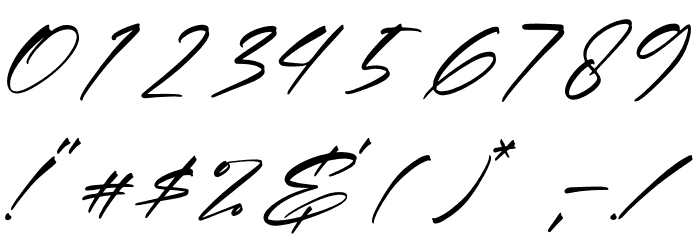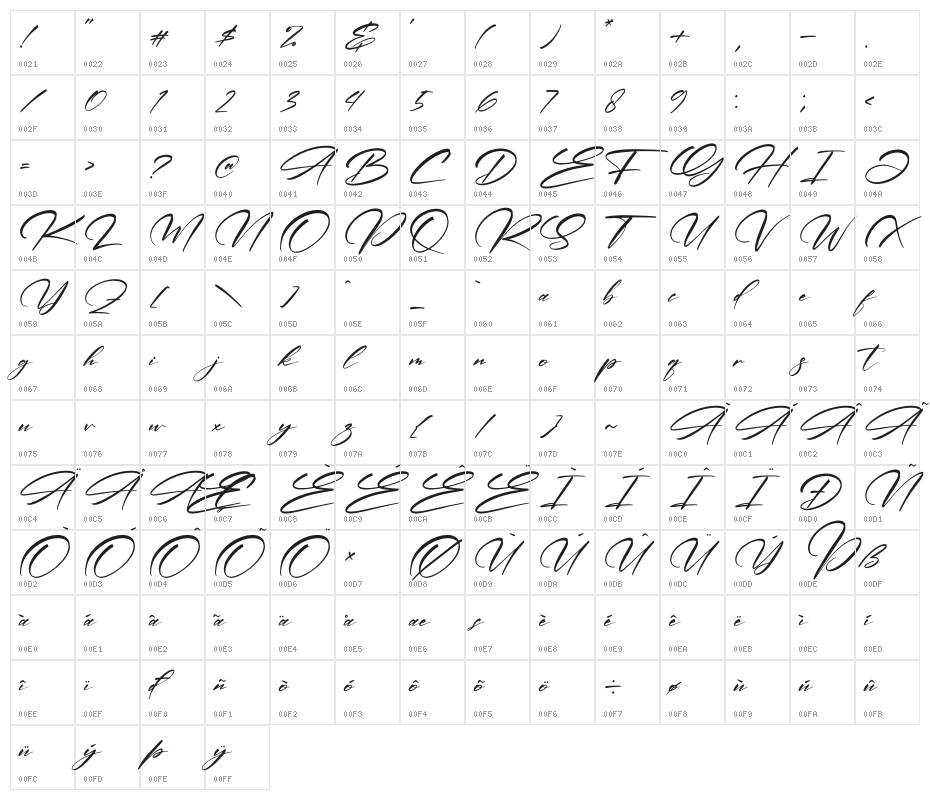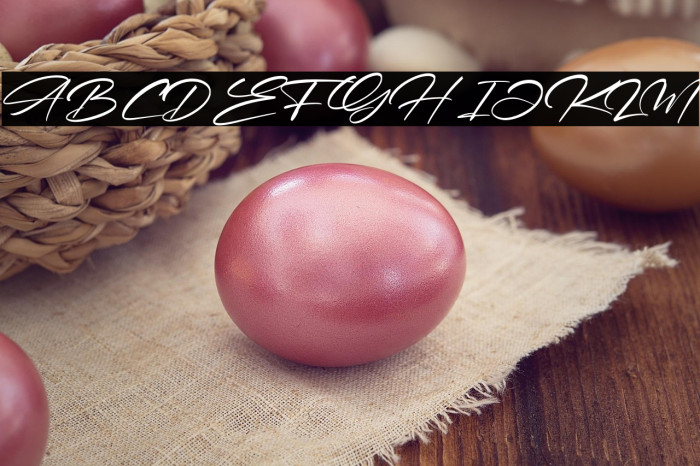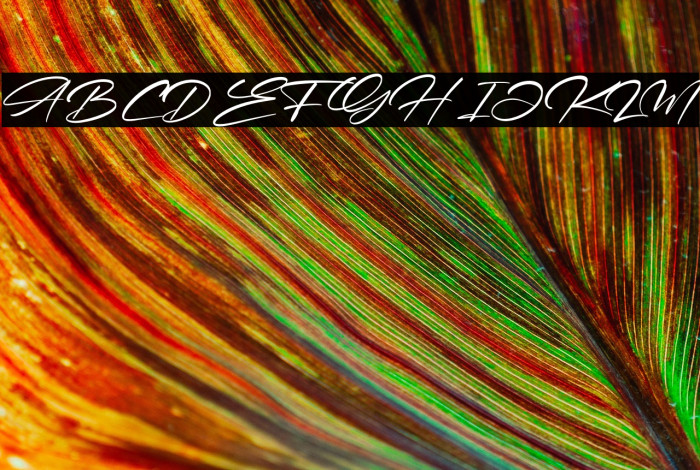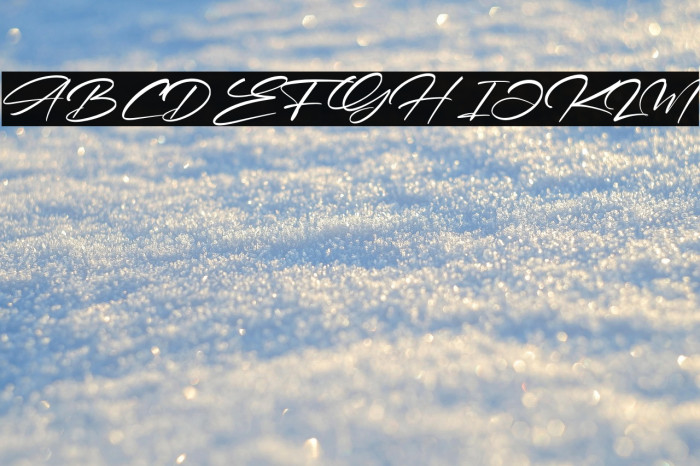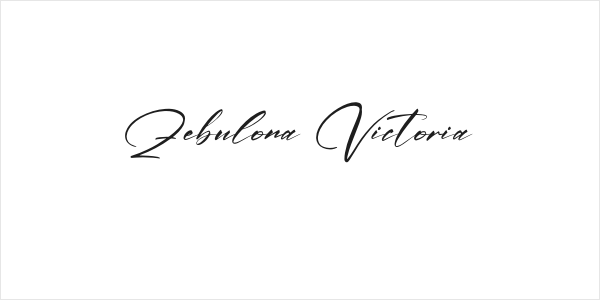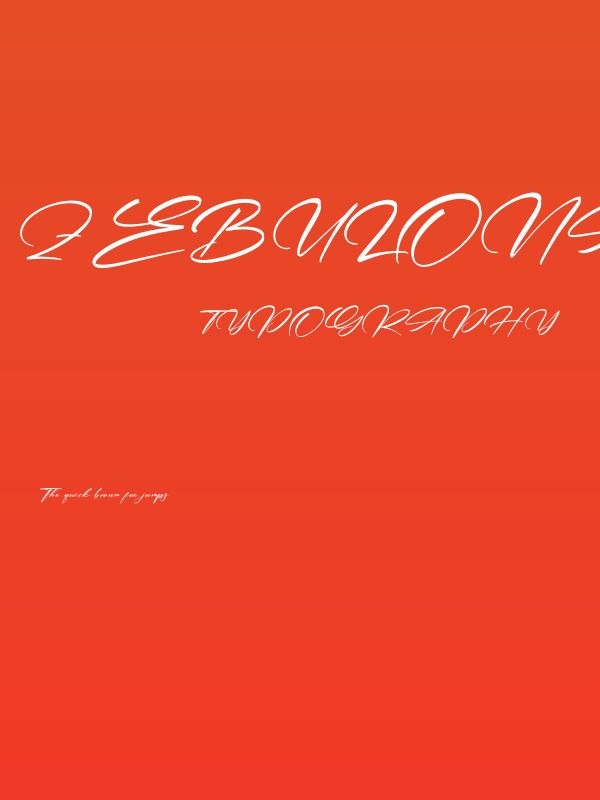
Zebulona Victoria Font
Zebulona Victoria Description
This elegant script font exudes a sense of sophistication and fluidity, characterized by its graceful, flowing lines and intricate curves. The letters are connected in a seamless manner, creating a harmonious and continuous appearance. The uppercase letters are bold and prominent, while the lowercase letters maintain a delicate and refined look. The numerals and special characters are crafted with the same attention to detail, ensuring consistency throughout the typeface. This font is ideal for projects that require a touch of elegance and style, such as wedding invitations, branding, and high-end product packaging.
| Overall Style | Elegant |
| Use Case | Logos, Invitations, Branding |
| Proposed Projects | Ideal for wedding invitations, luxury branding, and elegant product packaging. |